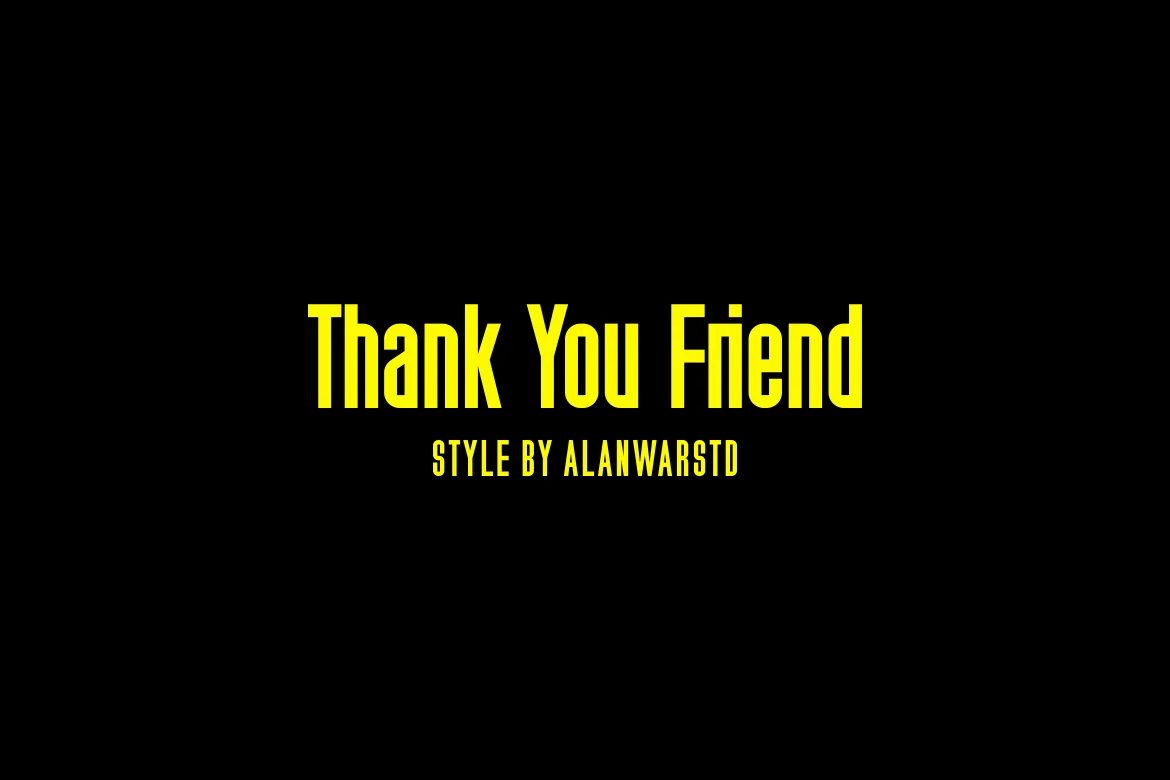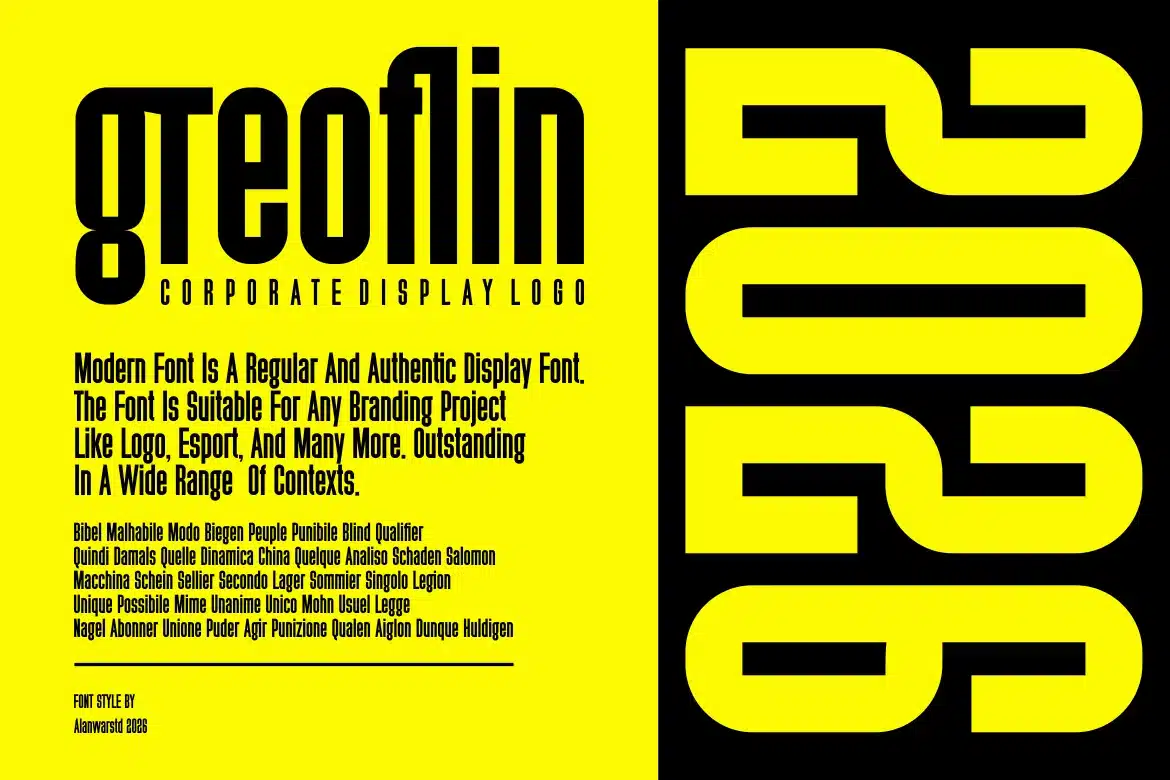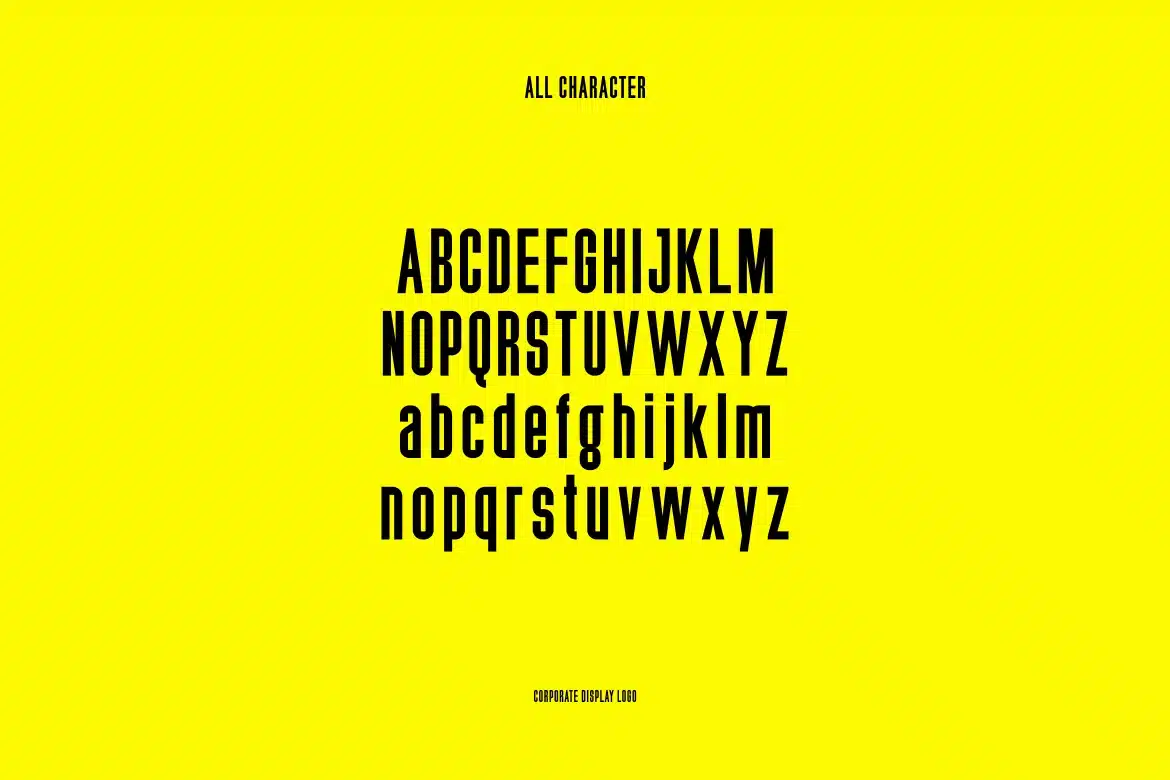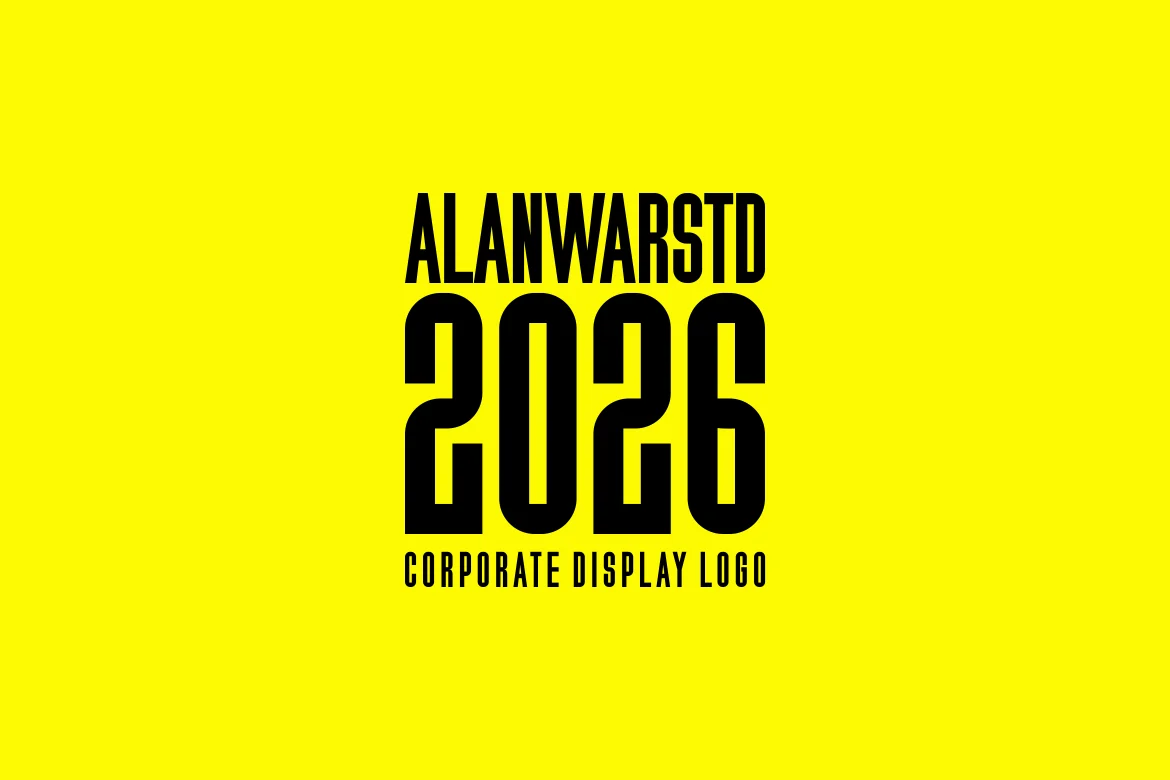
Greoflin – Corporate Display Logo Font
Introducing our new product Greoflin - Corporate Display Logo
Greoflin - Corporate Display Logo Font is a bold and authentic display font. The font is suitable for any branding project like logo, esport, and many more. outstanding in a wide range of contexts.
- Uppercase Alternate
- Lowercase Ligature